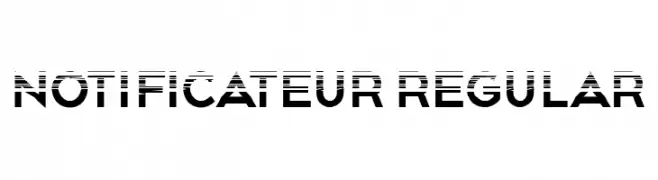
• Moneymachine Black PERSONAL Black
A bold, high-impact display font with thick, blocky letters and unique horizontal line crossings.
• SpeedMonstersDemo
A bold, dynamic font with horizontal lines creating a sense of speed and movement.
• Maskesa Regular
A bold, geometric font with unique horizontal accents and a futuristic style.
• Notificateur Regular
A bold, modern font with a unique horizontal striped pattern.
• Clara Strip
( Fonts by Nirmala Creative )
A bold, playful font with horizontal stripes and rounded edges.
• Beloved Girl
A playful, handwritten font with bold, rounded characters.
• Basketball
A bold, playful handwritten font with a dynamic and energetic style.
• Predataur Gradient
A futuristic, bold font with a horizontal line pattern and geometric structure.
• Y-Files Gradient
A bold, decorative font with a gradient effect created by horizontal lines.
• Y-Files Chrome Italic
A bold, italicized font with a 3D chrome effect and horizontal lines.